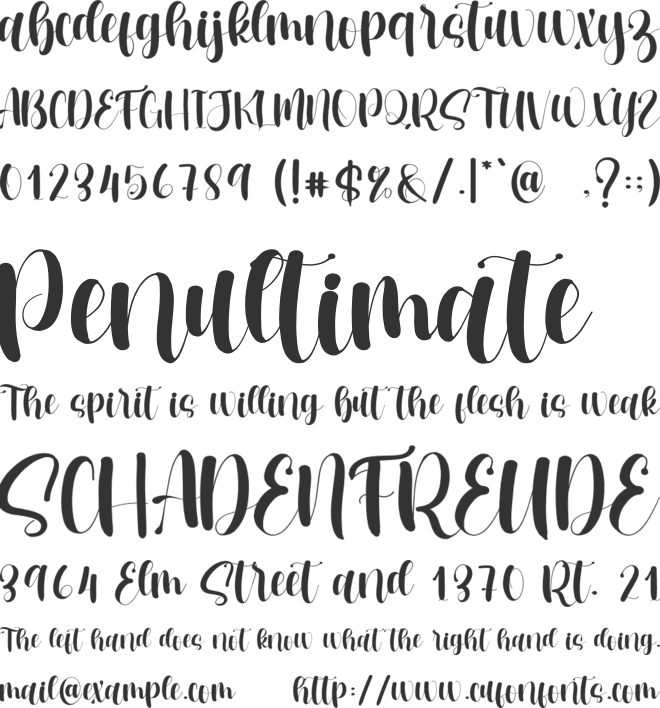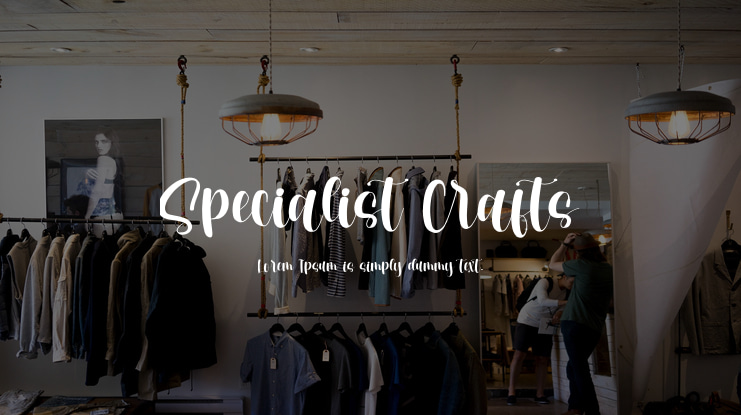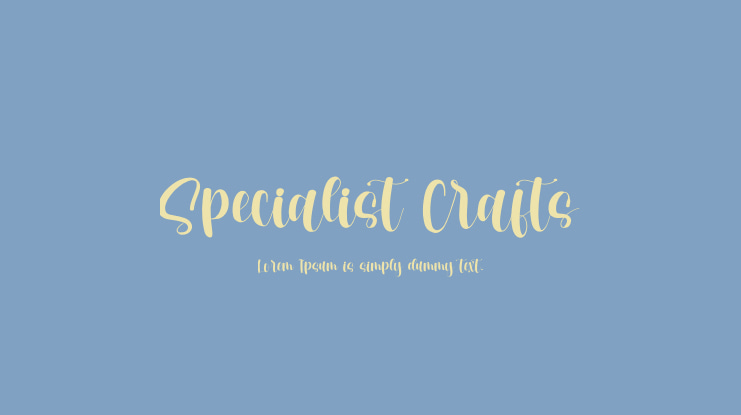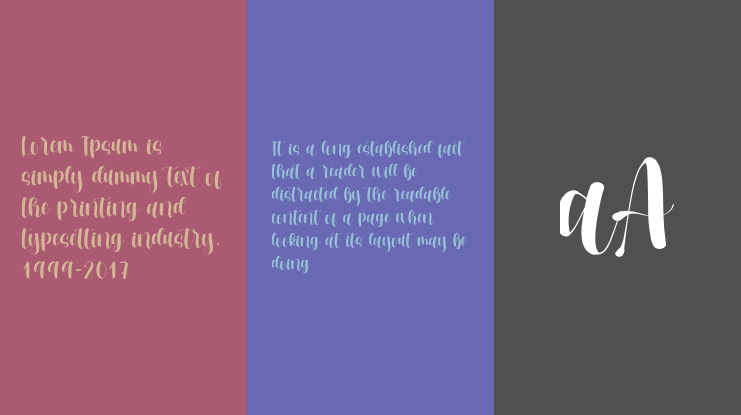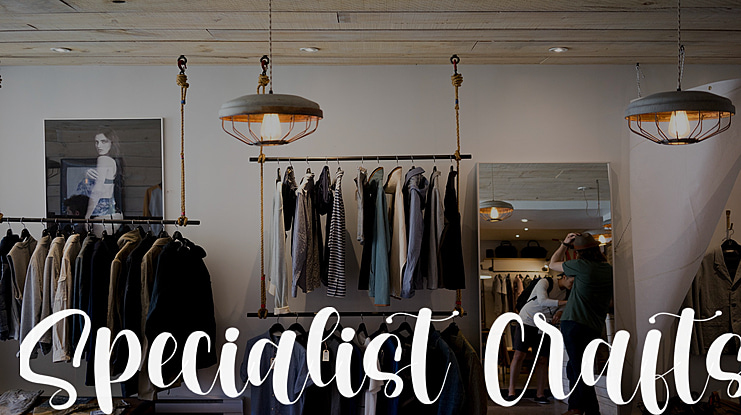
Specialist Crafts Font
This is a relaxed and beautiful paint brush handwritten font. It can be used for various purposes such as logos, wedding invitations, headings, t-shirts, letterhead, signage, labels, news, posters, badges and so much more.